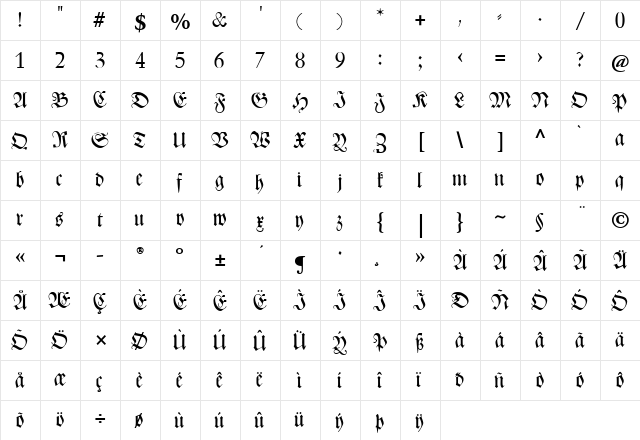
CAT Zentenaer Fraktur UNZ1 Regular
| Foundry | CAT-Fonts, Peter Wiegel |
| Designer | Prof. F. H. Schneidler 1937 |
Design Context for CAT Zentenaer Fraktur UNZ1 Typeface
CAT Zentenaer Fraktur UNZ1 draws on the rich tradition of blackletter calligraphy, with dense, angular strokes that evoke medieval manuscripts and old-world craftsmanship.
Well-suited to band logos, craft beer branding, tattoo lettering, and heritage-themed identities.
Font Pairing: Pair with a clean neutral sans-serif for body copy to let CAT Zentenaer Fraktur UNZ1's character lead without overwhelming the composition.
Pro Tip: Use CAT Zentenaer Fraktur UNZ1 sparingly at large sizes. Even a single word set in blackletter can define the visual register of an entire design.